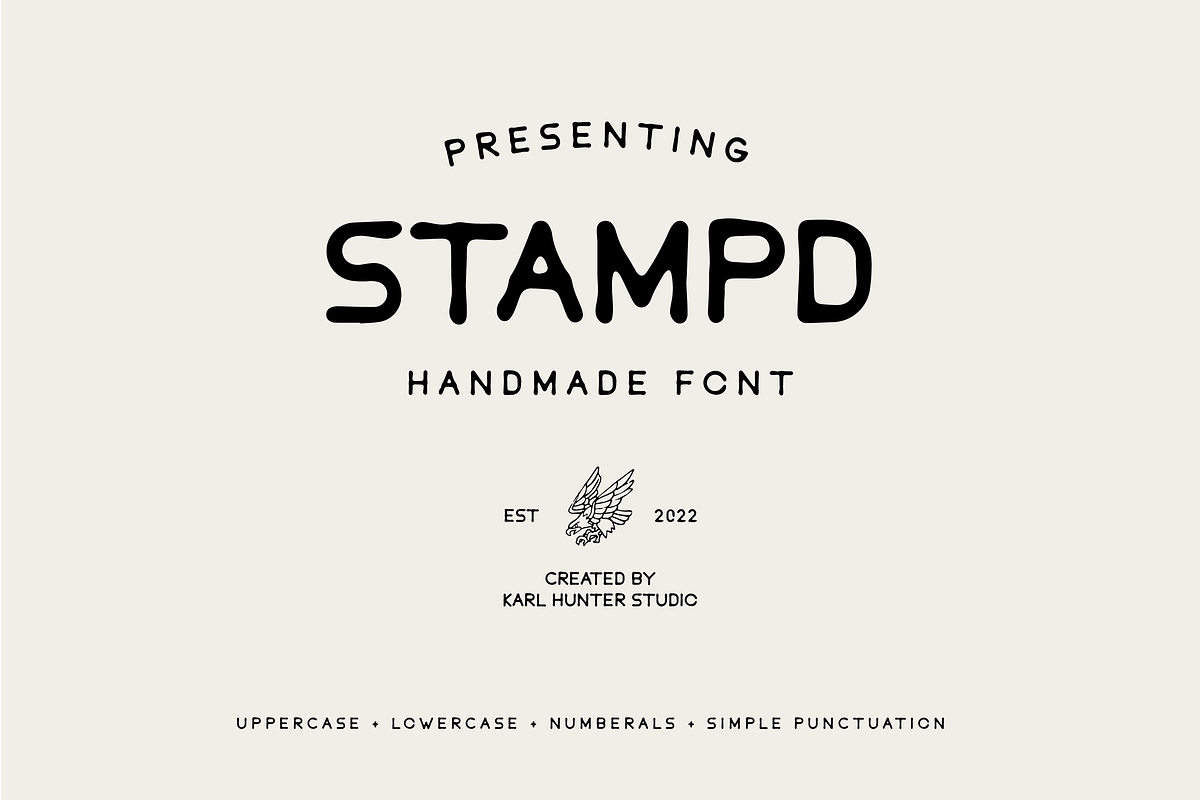
Bring raw character and handcrafted charm to your work with the Stampd Hand Drawn Font Free Download. This unique typeface captures the feel of authentic hand lettering with imperfect lines, playful strokes, and a rugged personality — perfect for vintage labels, craft branding, poster design, and artistic merchandise.
Stampd stands out in both digital and print projects, offering a natural, handmade aesthetic that feels personal and expressive. Whether you're designing for a coffee shop, an indie band, or a farmer’s market brand, this font adds that gritty, down-to-earth touch that modern audiences love.